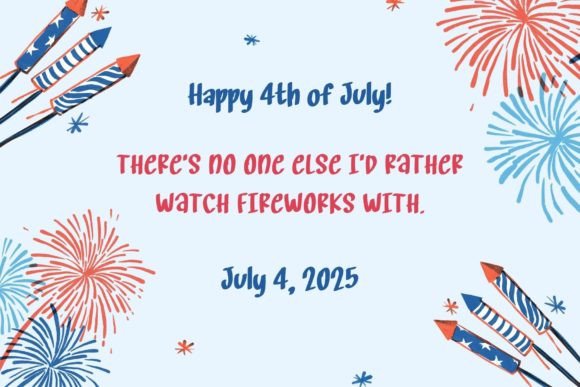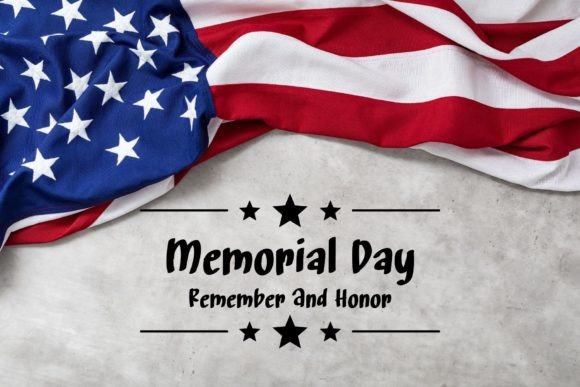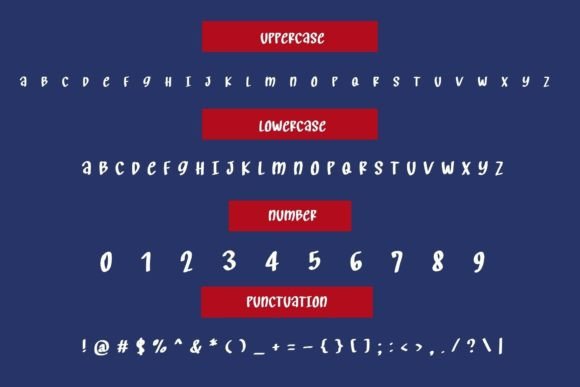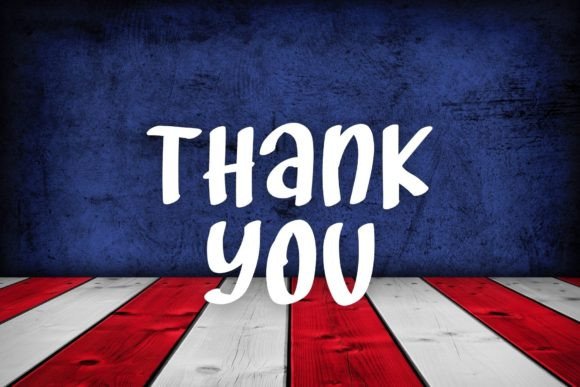
Introducing Freedom Font: The Perfect Choice for Creative Projects
Are you looking for a font that embodies playfulness and authenticity? Look no further than Freedom Font, a cute handwritten font that is perfect for a wide range of creative projects. Whether you’re a designer, crafter, or DIY enthusiast, Freedom Font is the ideal choice for adding a personal touch to your blog posts, logos, branding, ads, invitations, greeting cards, planners, photo albums, decorations, and more.
What is Freedom Font?
Freedom Font is a unique and charming handwritten font that is designed to bring a sense of playfulness and authenticity to your designs. Its cute and whimsical style makes it perfect for projects that require a personal and creative touch. With Freedom Font, you can add a touch of warmth and personality to your designs, making them stand out from the crowd.
Characteristics of Freedom Font
So, what makes Freedom Font so special? Here are some of its key characteristics:
- Playful and authentic: Freedom Font has a playful and authentic feel that makes it perfect for creative projects.
- Cute and whimsical: The font’s cute and whimsical style makes it ideal for designs that require a personal touch.
- Handwritten: Freedom Font is a handwritten font, which gives it a unique and personal feel.
- Versatile: The font is versatile and can be used for a wide range of projects, from blog posts to logos, branding, and more.
Uses for Freedom Font
Freedom Font is perfect for a wide range of creative projects, including:
- Blog posts: Add a personal touch to your blog posts with Freedom Font.
- Logos and branding: Use Freedom Font to create unique and memorable logos and branding materials.
- Ads: Make your ads stand out with Freedom Font’s playful and authentic style.
- Invitations and greeting cards: Add a personal touch to your invitations and greeting cards with Freedom Font.
- Planners and photo albums: Use Freedom Font to add a creative touch to your planners and photo albums.
- Decorations: Freedom Font is perfect for creating decorative elements, such as signs, banners, and more.
Why Choose Freedom Font?
So, why should you choose Freedom Font for your creative projects? Here are some reasons:
- Unique and creative: Freedom Font is a unique and creative font that will help your designs stand out.
- Versatile: Freedom Font is versatile and can be used for a wide range of projects.
- Playful and authentic: The font’s playful and authentic style makes it perfect for creative projects.
In conclusion, Freedom Font is a cute and playful handwritten font that is perfect for a wide range of creative projects. Its unique and authentic style makes it ideal for designers, crafters, and DIY enthusiasts who want to add a personal touch to their designs. With Freedom Font, you can create unique and memorable designs that will stand out from the crowd. So, why wait? Download Freedom Font today and start creating!